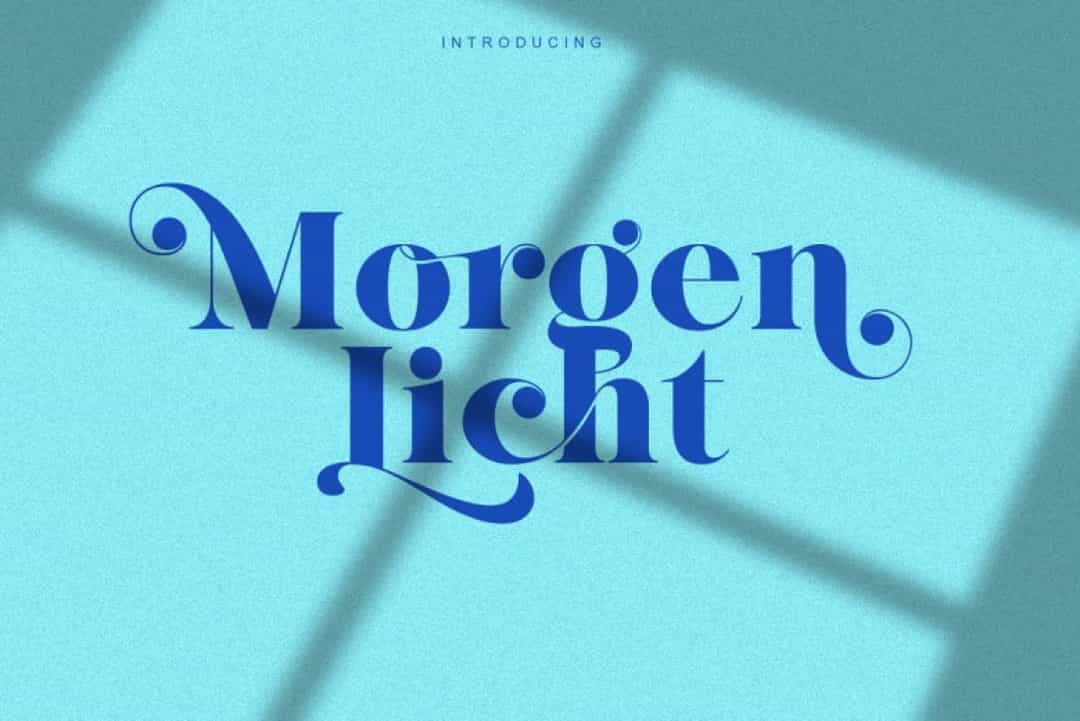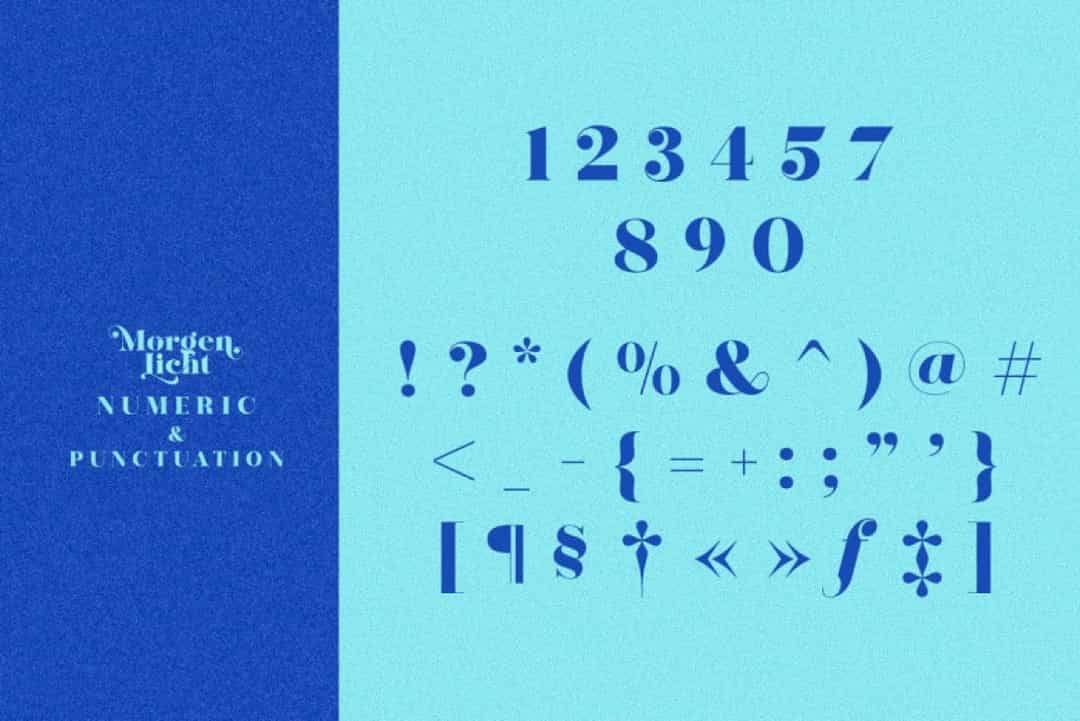
Morgenlicht is a beauty serif display font. Suitable for invitation cards and decorations, clothing products like greeting cards, and other products, the font also comes with uppercase and lowercase numbers punctuation as well as multilingual support – not to mention many ligatures and stylistic variations for added flexibility.